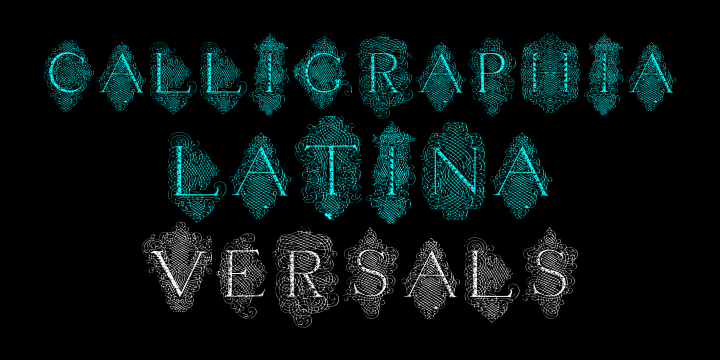
CALLIGRAPHIA LATINA VERSALS
Designed by Paulo W, Calligraphia Latina Versals is a monograms font family published by Intellecta Design.
One of the most successful worldwide ornament fonts is Calligraphia Latina. It is part of a trend that’s been quite popular lately: messed-up calligraphy. You can dirty up (or deconstruct) gracious classic-looking curves in many ways: using a variety of software filters; by superimposition: or even by hand. The result works well when you want that worn-down grungy look. CalligraphiaLatina is a worldwide best-seller from IntellectaDesign, a family of many fonts. Here you get CalligraphiaLatina Versals